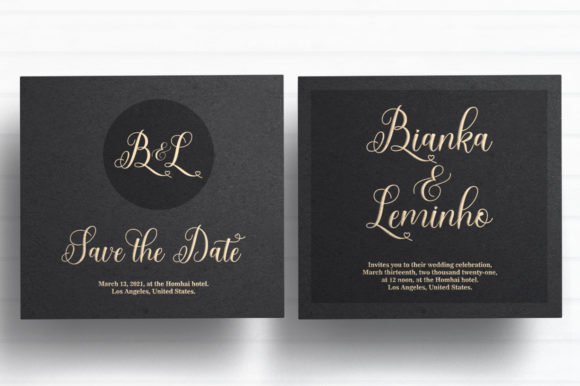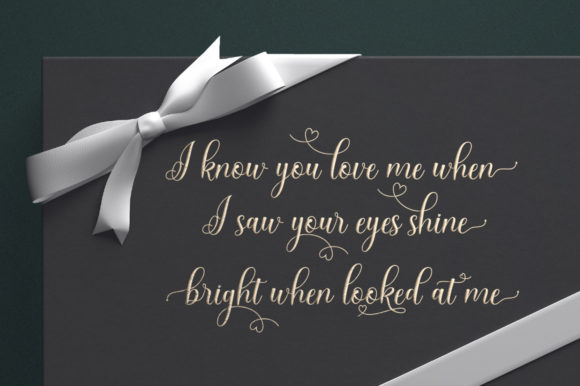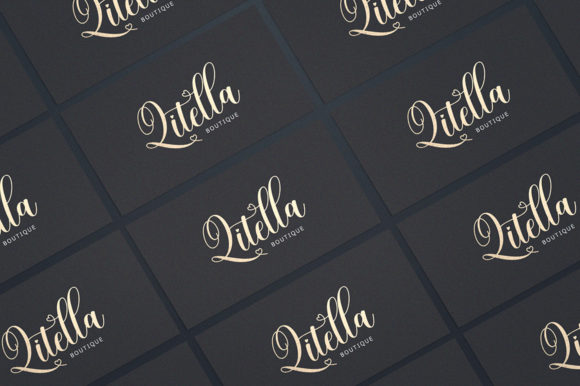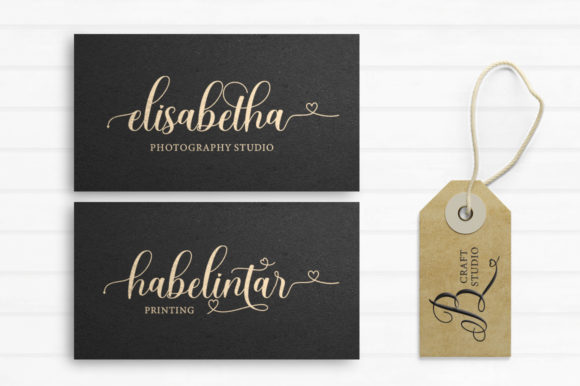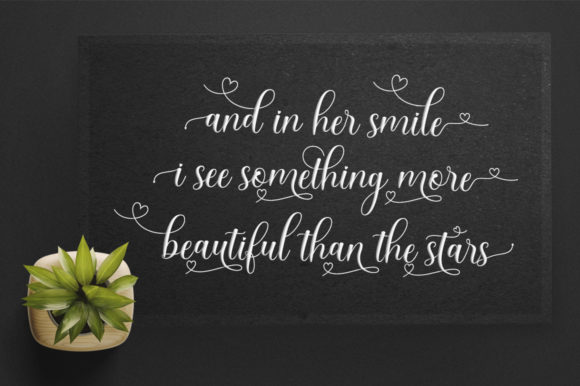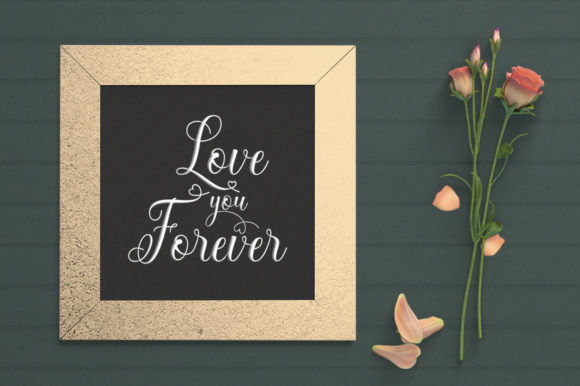
Introduction to Scarletta Font
Remember the feeling of excitement and anticipation when you stumble upon the perfect design resource for your creative project? It’s like finding the missing piece of a puzzle that brings your vision to life. For many designers, this moment is a game-changer. And, for those who adore classic yet friendly designs, the Scarletta Font is sure to be a treasure trove of inspiration.
As a designer, you understand the importance of having the right tools at your disposal to elevate your work. The Scarletta Font is an excellent addition to any design arsenal, offering a romantic and sweet calligraphy style that’s both timeless and versatile. With its high-quality design and transparent background, this font is perfect for making original and outstanding designs that truly stand out.
Key Features of Scarletta Font
- High-quality, elegant script font suitable for various design resources and creative projects.
- Features 1000+ glyphs, making it suitable for multilingual projects and providing a wide range of design possibilities.
- Unique characteristic: The Scarletta Font features a dynamic, flowing design that adds a touch of sophistication to any creative project.
Honest Review: Scarletta Font
I recently had the chance to experiment with the Scarletta Font, and I must say, it’s a great addition to any design resource collection. I downloaded it for free, and I was pleasantly surprised by the high-quality results it produced in my creative project.
- ✨ Elegant and sophisticated design aesthetic, perfect for luxury brands and high-end products.
- ✨ Excellent legibility, even at smaller font sizes.
- ✨ Transparent background, allowing for easy overlay and composition.
- ⚠️ Limited font styles, with only a few weights and variations available.
- ⚠️ Not ideal for body text, as it can be a bit too ornate and distracting.
Overall, I’m quite impressed with the Scarletta Font. While it may not be suitable for every design project, it’s definitely a high-quality addition to any creative’s toolkit. With its elegant design and transparent background, it’s a great choice for logos, headings, and other display typography. If you’re looking for a unique and sophisticated font, Scarletta Font is definitely worth checking out.
The Scarletta Font is commonly used for branding, marketing materials, and social media graphics. Its unique design and high quality make it perfect for any creative project that requires a professional and eye-catching look.